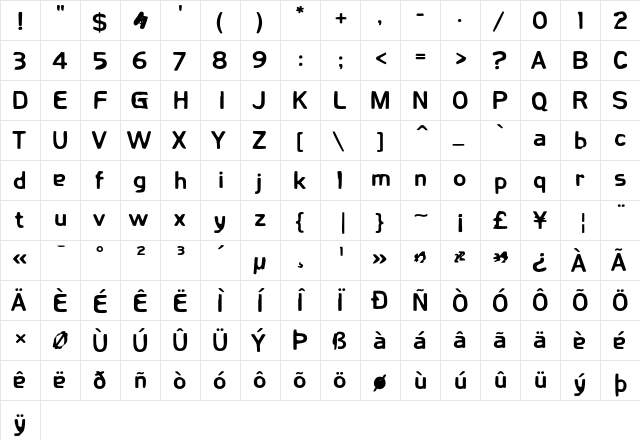
Fetma Heavy
Fetma takes a measured approach to typography — its balanced proportions and neutral character make it a reliable workhorse for both digital and print work.